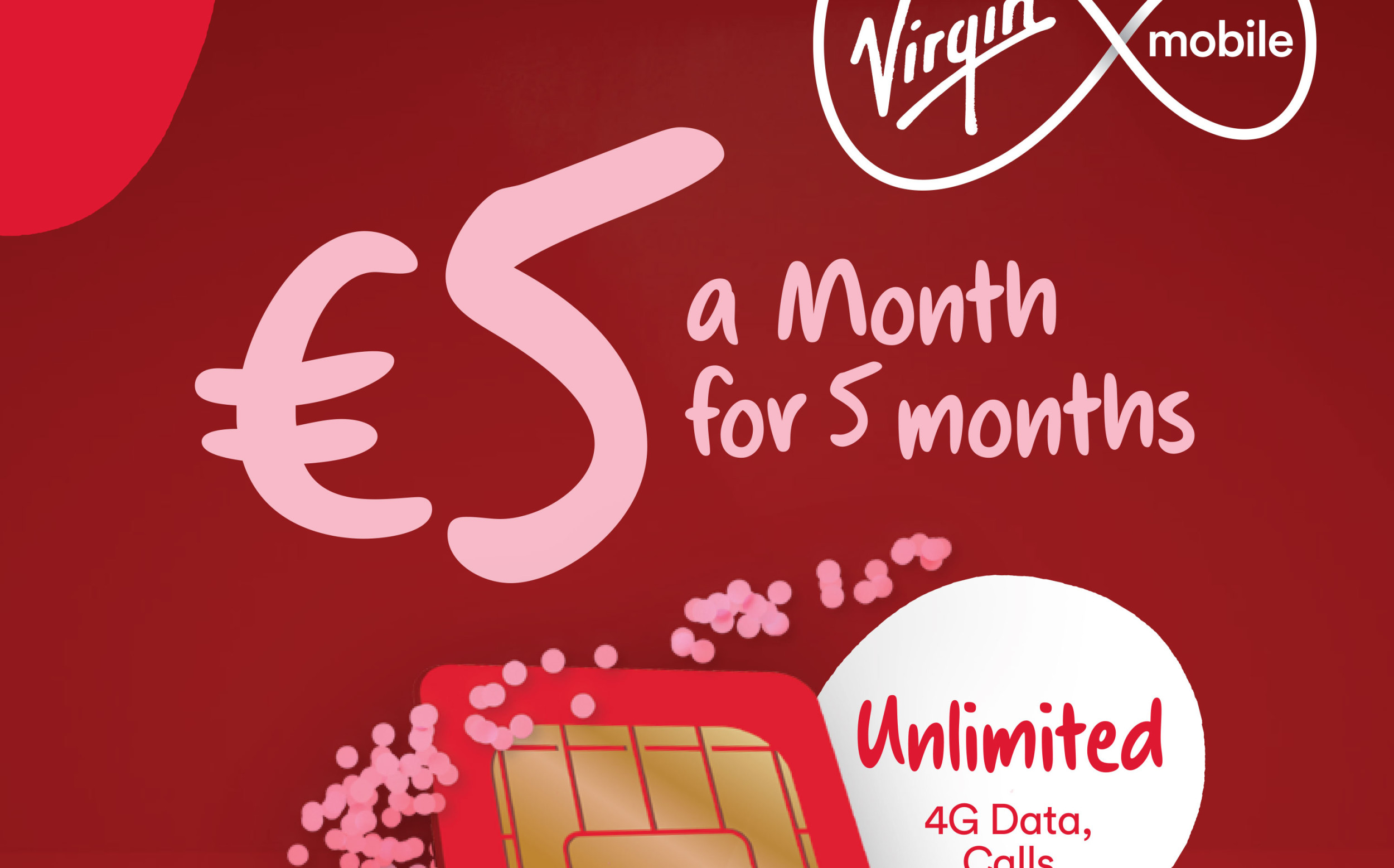
Virgin Media
Virgin Media is Ireland’s leading broadband, TV, and home phone service, as well as the country’s number one commercial broadcaster, but not everyone knew they were a leading mobile provider as well. The challenge was to build awareness.
We collaborated with Publicis Dublin on a friendly, informal handwriting script to promote the successful launch of their new discount data plans, with lively, fluid forms drawn to harmonize with a suite of motion graphics by Pirhana Bar. Direction by Publicis.